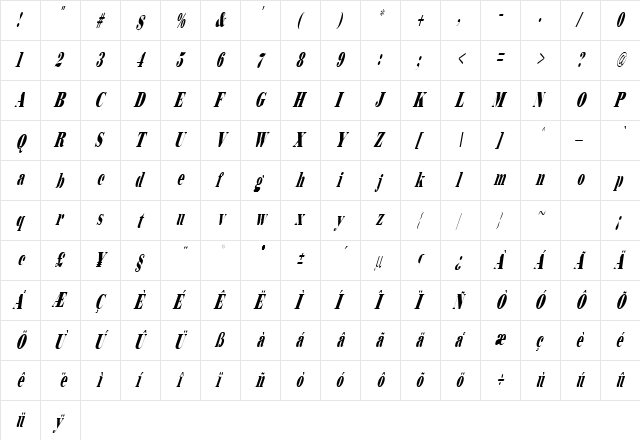
Marooned 7 Regular Font Preview
Marooned 7 Regular
Marooned 7 Regular Font Details
Design Context for Marooned 7 Typeface
Marooned 7 offers clean, dependable letterforms without strong stylistic allegiance, making it a practical choice for designers who need flexibility.